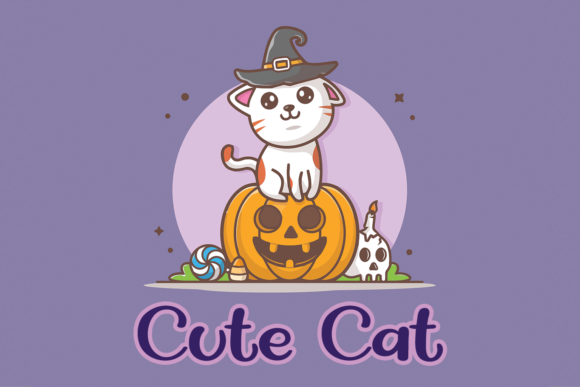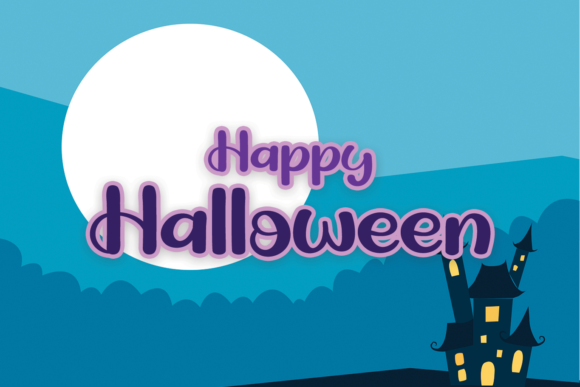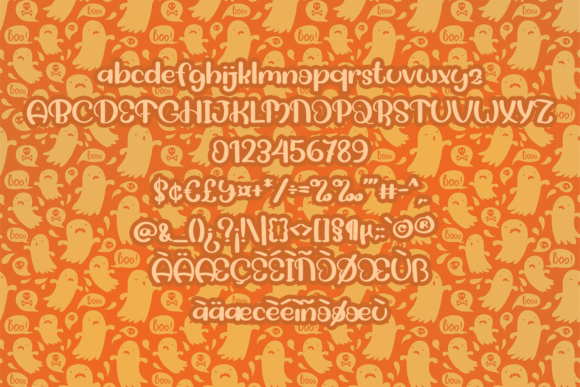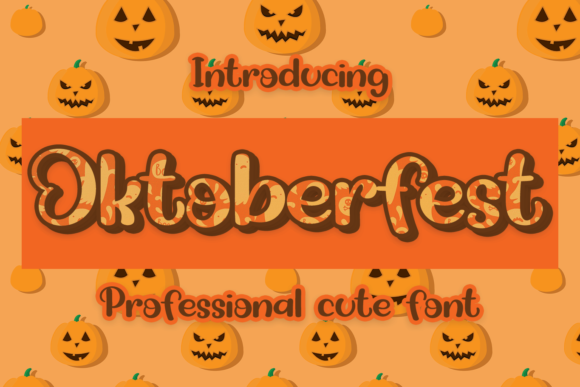
Introduction to Oktoberfest Font
Oktoberfest is a cute and chic handwritten font.
It embodies playfulness and authenticity and is the perfect choice for any project that requires a joyful touch .
Oktoberfest Font offers exceptional quality and versatility, making it a valuable addition to your design toolkit. Whether you’re creating for personal projects or commercial use, Oktoberfest Font delivers professional results.